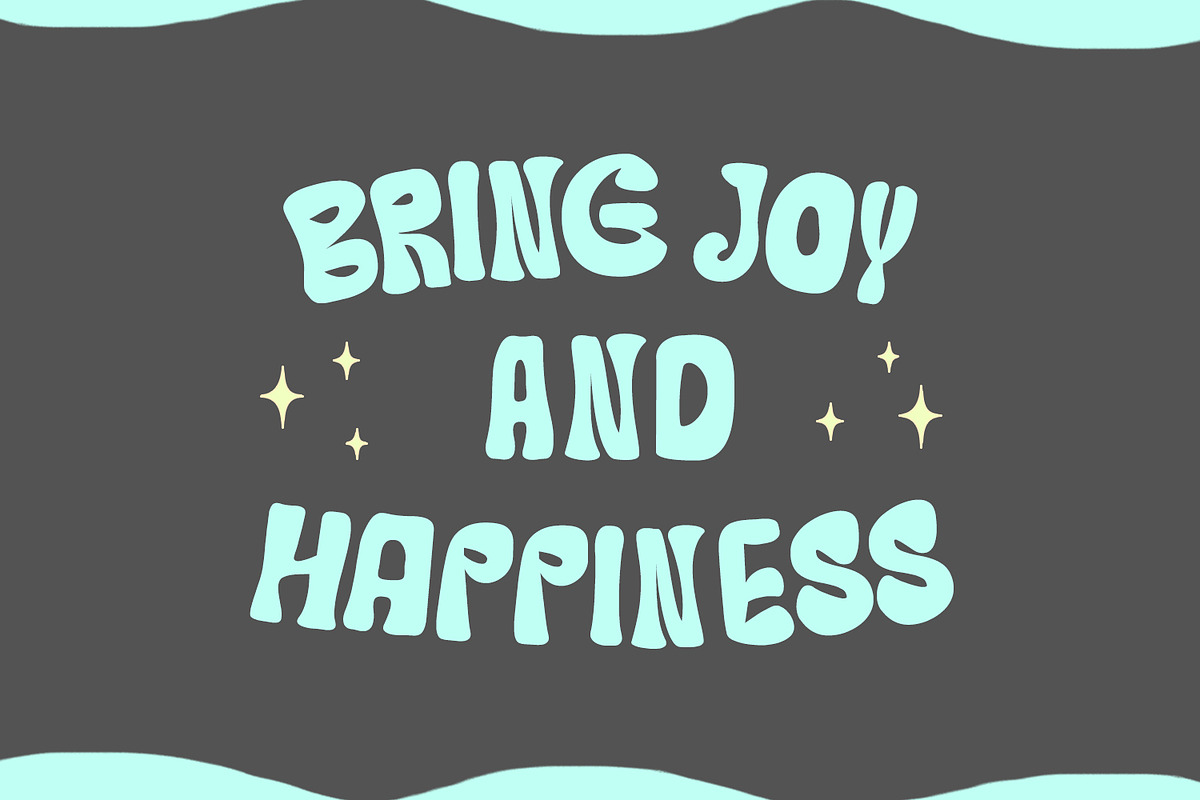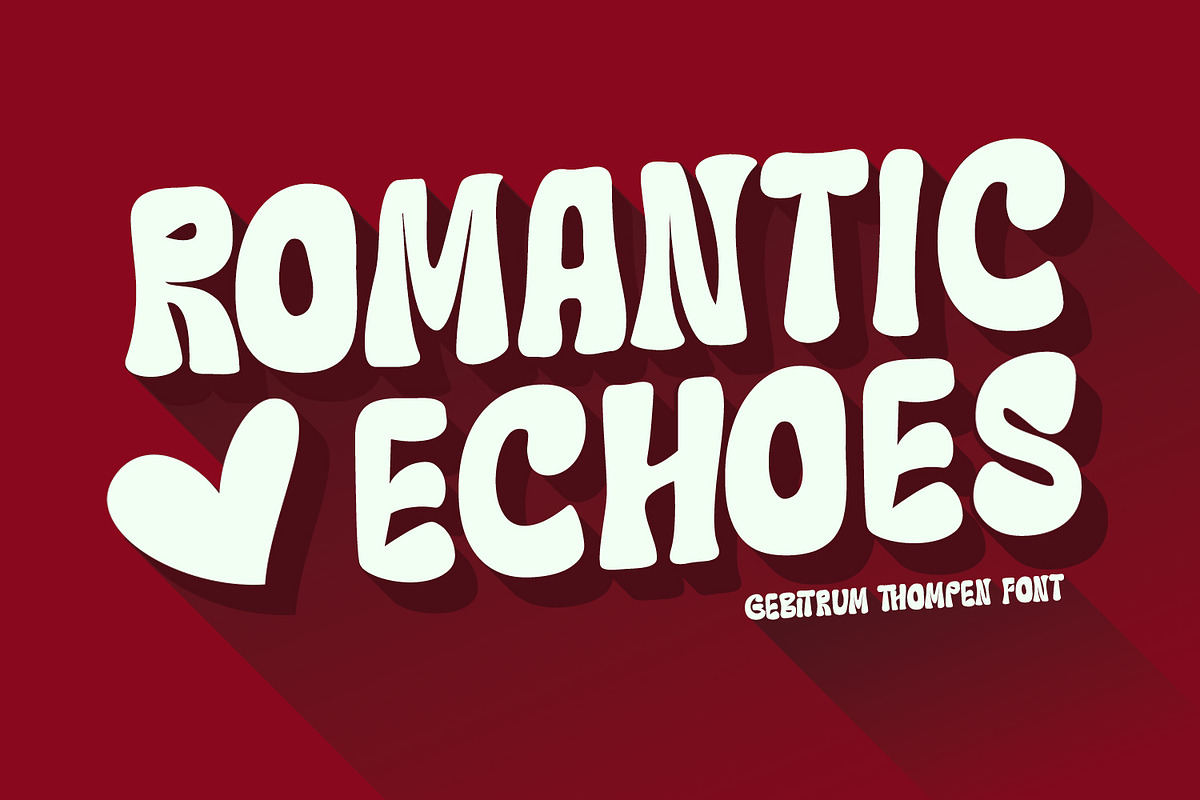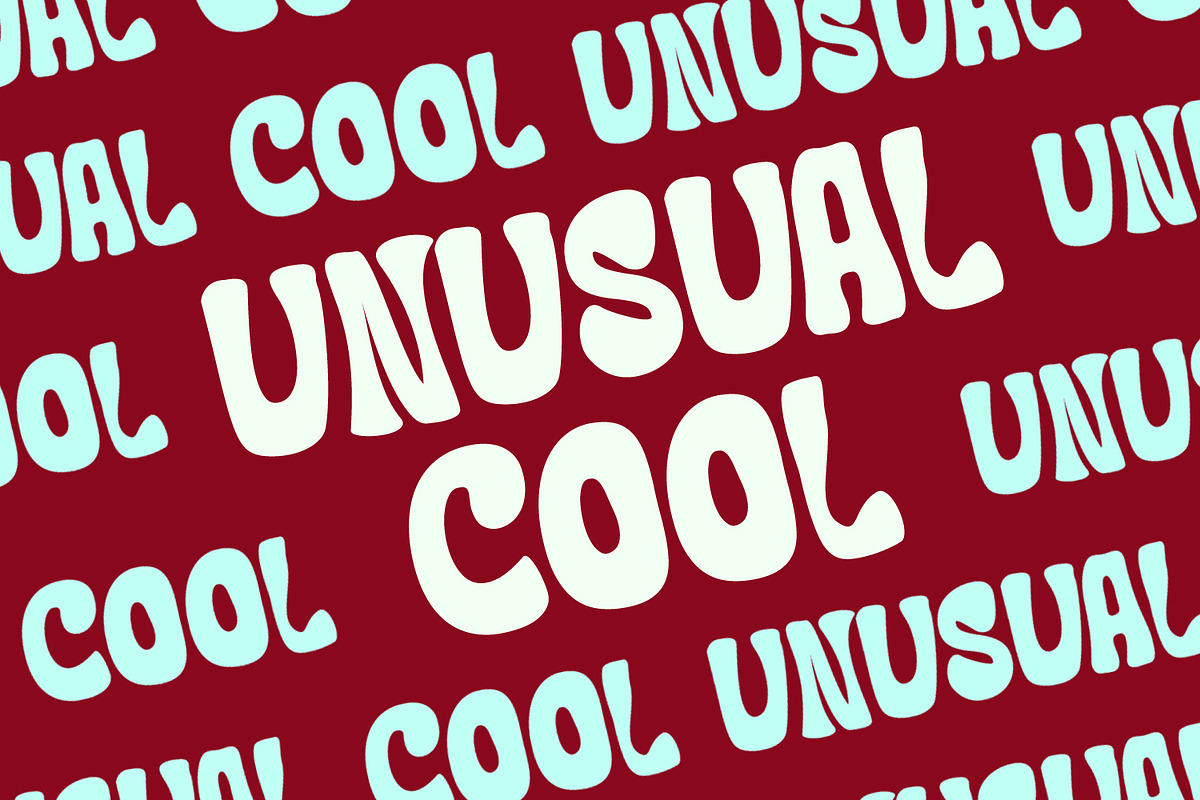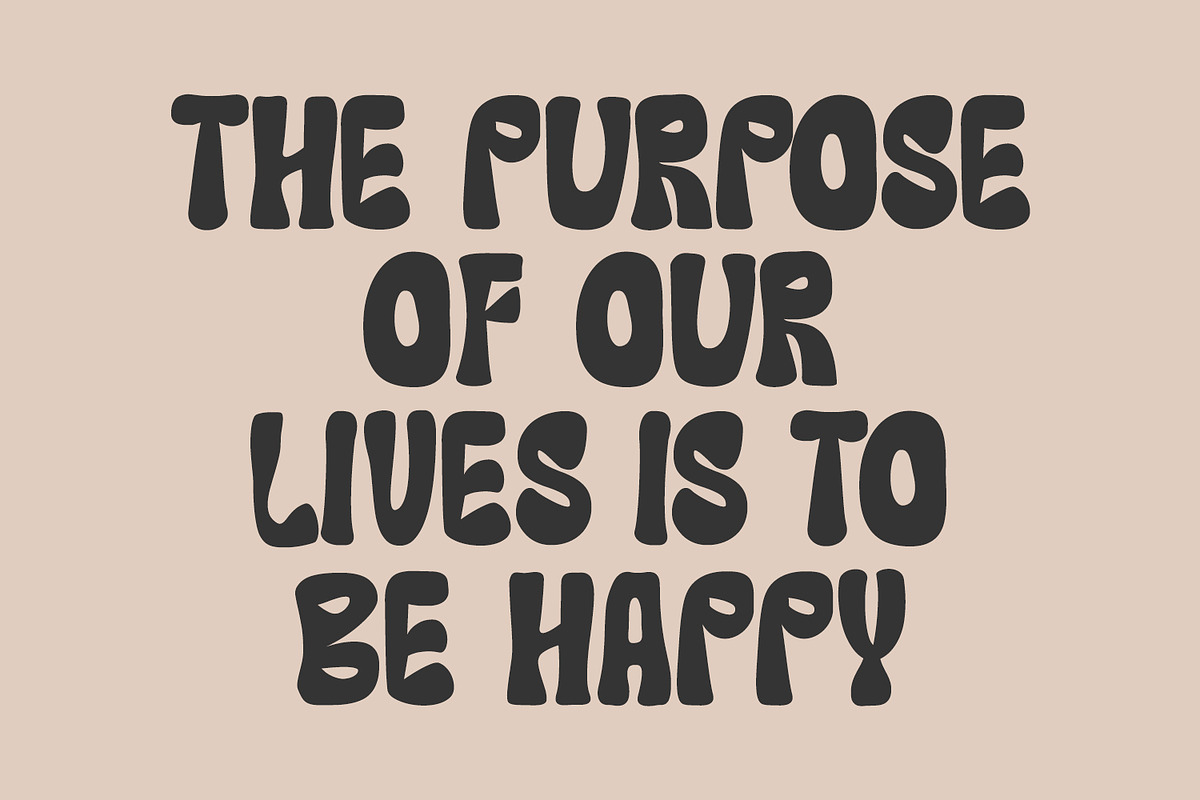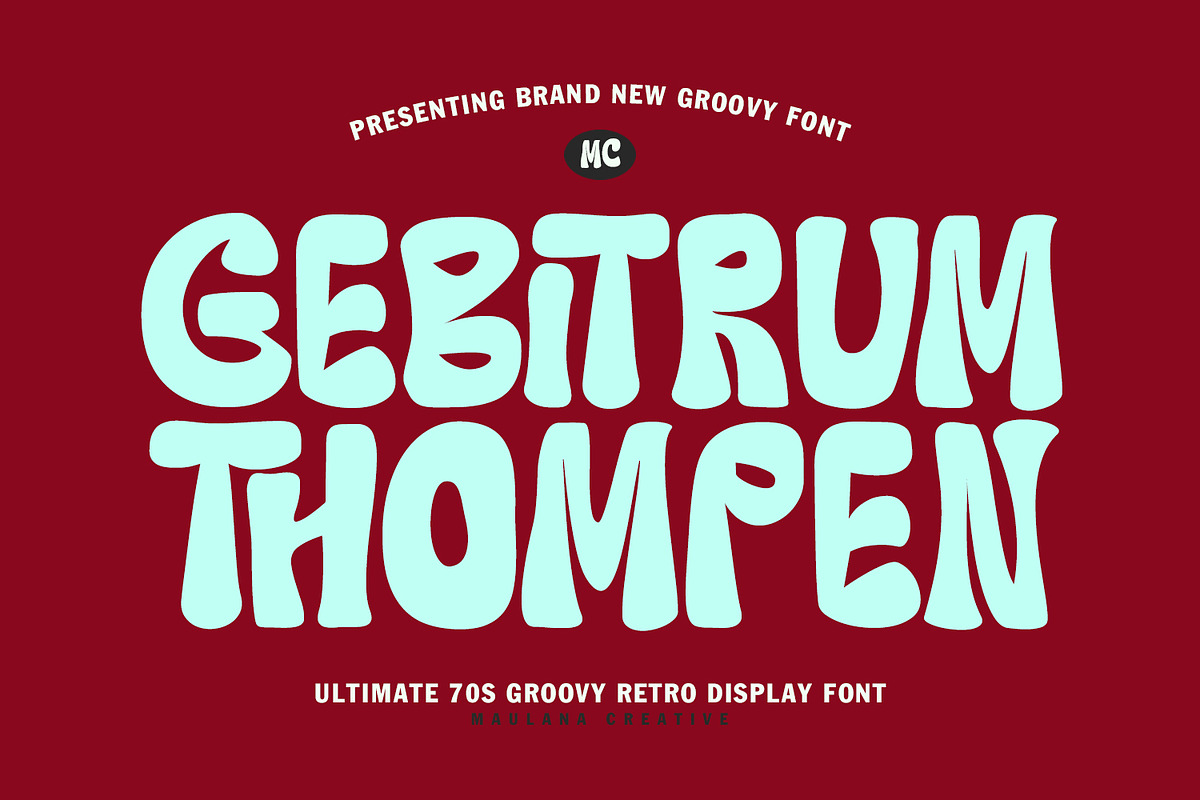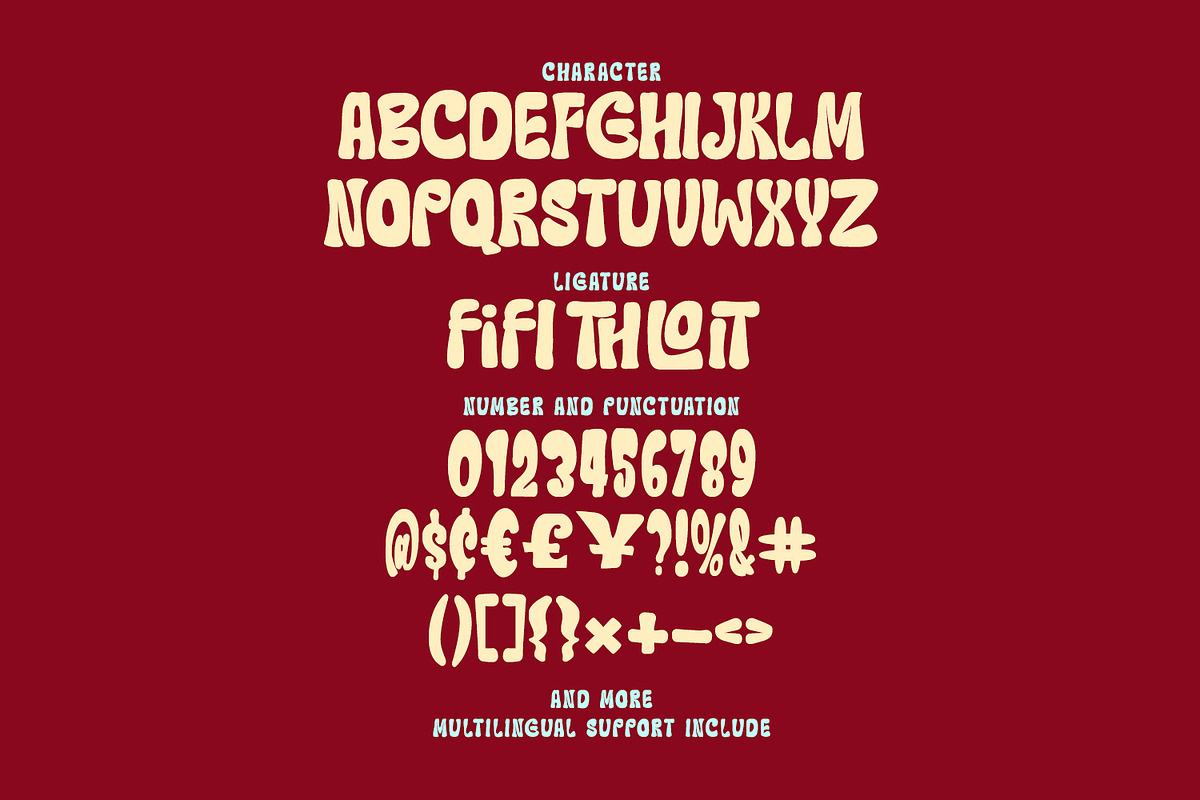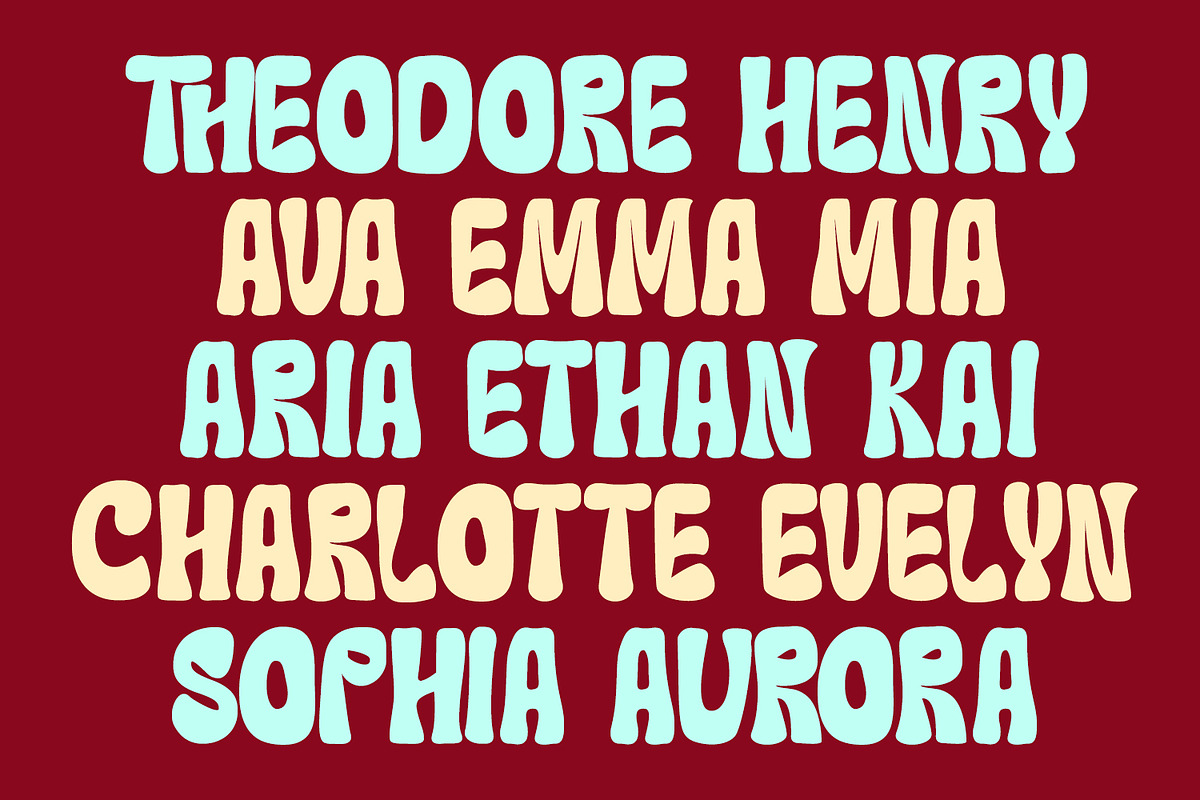
Gebitrum Thompen Ultimate 70s Groovy
Unleash the spirit of the 70s with Gebitrum Thompen!
This brand new display font is a nostalgic trip back to the era of peace, love, and bold design. Gebitrum Thompen features irresistibly chunky, rounded, and playful letterforms that capture the authentic groovy aesthetic. It's the perfect typeface to inject a burst of vintage energy and fun into your creative projects.
- Authentic Retro Style: Perfectly designed to evoke the classic 1970s mood.
- Unique Display Font: Its bold, playful character ensures your text stands out.
- Versatile Use: Ideal for album, branding, merchandise, designs, social media graphics, and striking headlines.
- Full of Personality: The distinctive rounded edges and unique weight create a memorable and friendly visual impact.
- Includes Ligatures: Enhanced typography with stylish, custom ligatures for an extra layer of design flair.